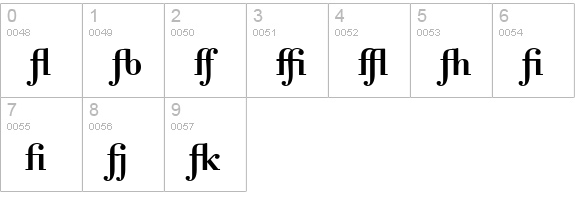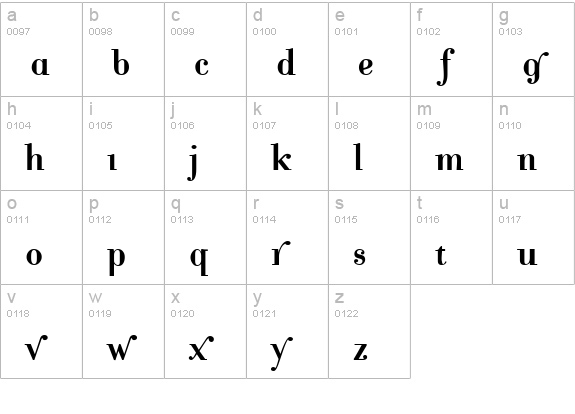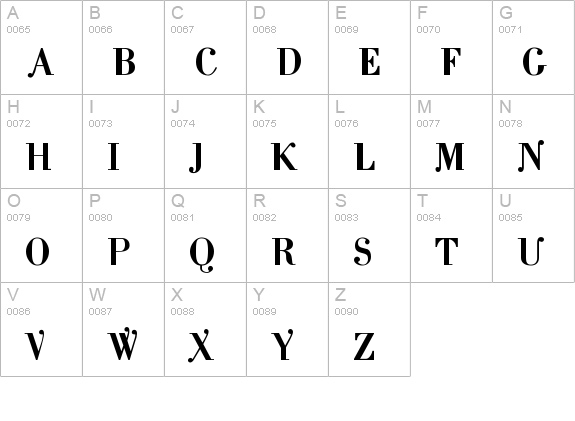
CantabileDemiAlternate Font Details
CantabileDemiAlternate font is a beautiful and elegant typeface that exudes sophistication and charm. Its graceful curves and stylish letterforms make it the perfect choice for adding a touch of refinement to any design project. The alternate version of the font offers a unique twist, adding a subtle flair that sets it apart from traditional typefaces. What's even better is that CantabileDemiAlternate font is available for free download at FontsMarket.com. This means that you can easily access this stunning typeface without any cost, making it a valuable addition to your font collection. Whether you're working on a branding project, a website design, or any other creative endeavor, CantabileDemiAlternate font is sure to elevate your work and leave a lasting impression. Unlock the beauty of this font today and enhance your designs with its timeless appeal.